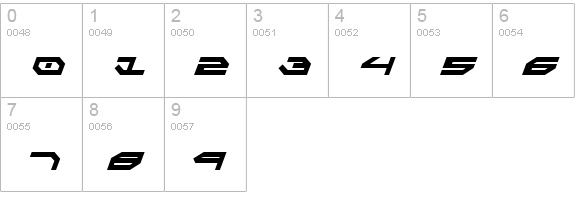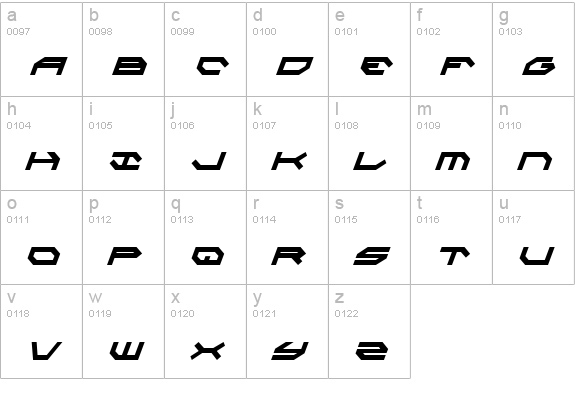
Taskforce Condensed Italic is a distinctive, condensed-width, italic variant in the Taskforce typeface family \xE2\x80\x94 well suited to design and typography projects.
Taskforce Condensed Italic is a modern and stylish font that exudes sophistication and elegance. Its sleek and streamlined design makes it perfect for various design projects, from branding to marketing materials. The italicized style adds a touch of flair and dynamism to any text, making it stand out and grab the attention of the audience. This font is not only visually appealing but also highly functional, ensuring readability and clarity in any size or format. Whether you're creating a logo, website, or print materials, Taskforce Condensed Italic will elevate your design with its contemporary and professional look. The best part is that Taskforce Condensed Italic is available for free download at FontsMarket.com. You can easily access this high-quality font and enhance your projects without any cost. Don't miss out on this fantastic opportunity to elevate your design with Taskforce Condensed Italic!